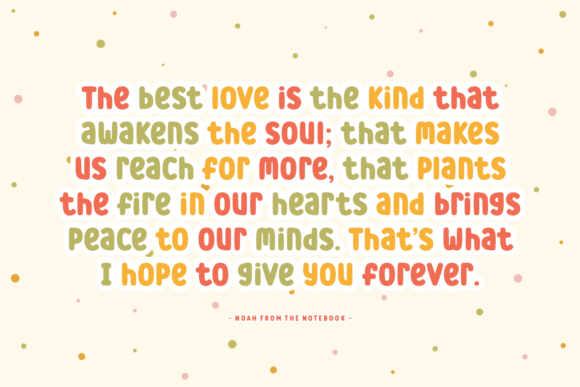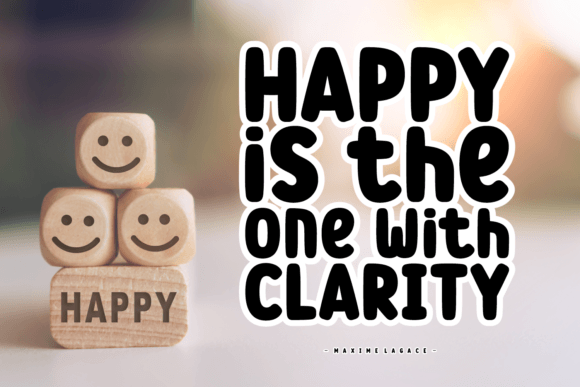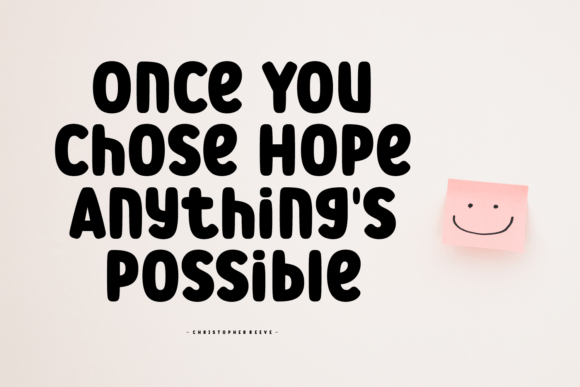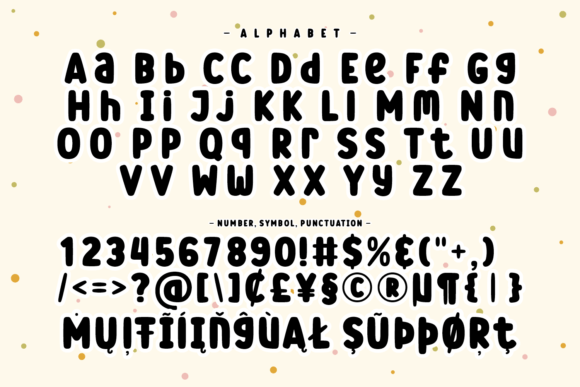
The Joy of Feely Happy Font: A Designer’s New Best Friend
I’ll never forget the time I was working on a children’s book project, and my client asked me to create a custom illustration with a playful, kid-friendly font. I spent hours scouring the internet for the perfect typeface, but nothing seemed quite right. That was until I stumbled upon Feely Happy Font. ✨
This adorable font has been a game-changer for my design projects, and I’m excited to share my experience with you. In this article, we’ll dive into the world of Feely Happy Font, exploring its features, how to use it, and some similar fonts you might love.
An Honest Review of Feely Happy Font
- ✅ Cute and Playful: Feely Happy Font is perfect for creating unique, kid-friendly designs that are sure to delight.
- ✅ Neat and Legible: Despite its playful personality, this font remains surprisingly legible, even at smaller sizes.
- ✅ Bright Personality: Feely Happy Font adds a pop of fun and energy to any project, making it perfect for designs that need a little extra personality.
While Feely Happy Font is an amazing typeface, it’s not without its quirks. 🤔 Here are a few things to keep in mind:
- ⚠️ Limited Use in Formal Designs: Due to its playful nature, Feely Happy Font might not be the best choice for formal or professional designs.
- ⚠️ Glyph Limitations: While Feely Happy Font has a range of glyphs and OpenType features, it might not have every special character or symbol you need.
The Backstory of Feely Happy Font
Feely Happy Font was created by a team of designers who wanted to create a typeface that would bring joy and happiness to designs. Inspired by the playful, whimsical world of children’s illustrations, Feely Happy Font is the perfect choice for designers who want to add a little extra personality to their work.
| Font Name | Feely Happy Font |
| Author | Feri (7NTypes) |
Q: What is Feely Happy Font?
A: Feely Happy Font is a cute, playful, and neat typeface designed for unique, kid-friendly designs.